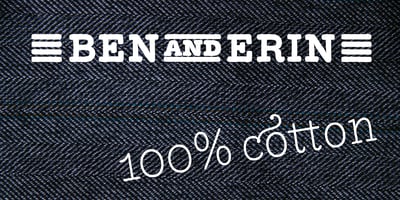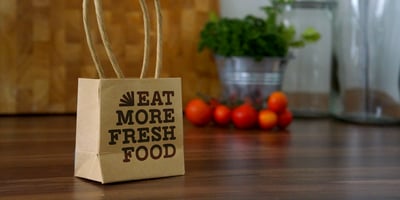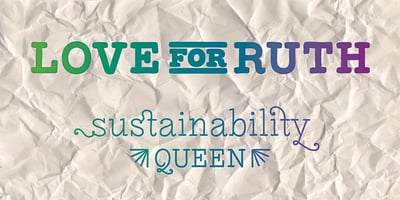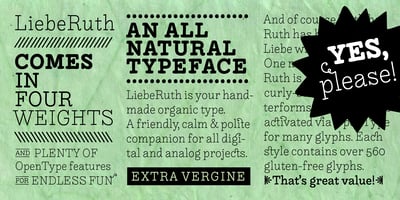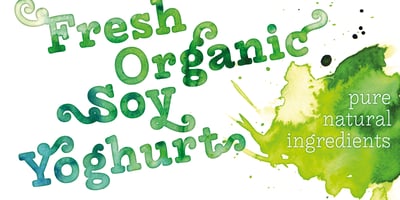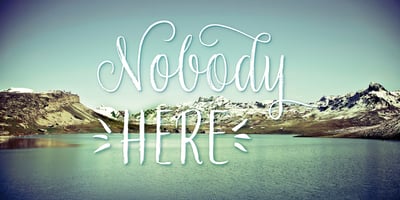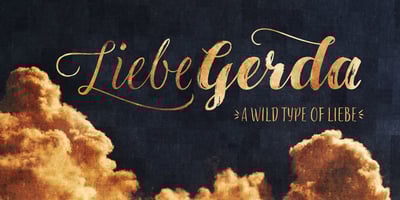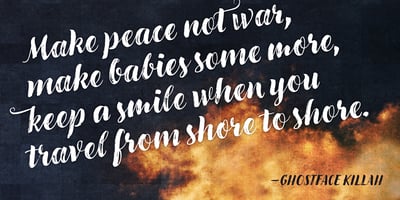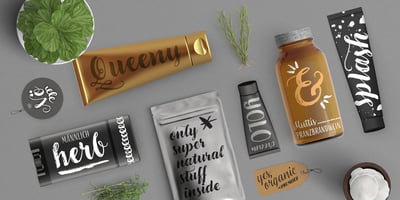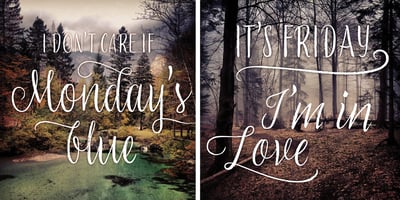
LiebeFonts
“Liebe” means “love” in German. “The name LiebeFonts is meaningful to me in more ways than one”, Ulrike Wilhelm said in her 2013 Creative Characters interview. “On one hand, my fonts obviously look ‘sweet’ — in other words, friendly and lovable. And of course the name also refers to my own love of fonts.”
Berlin-native Ulrike started her foundry with a collection of witty picture fonts; but it was her alphabetic typefaces that gave her company its first hit. LiebeErika was one of our Top Fonts of 2010.
All of Ulrike’s fonts have a hand-made touch to them. “I feel magically attracted to hand-made products and designs. I love it that people have to inspect the letters really closely to verify that they were not laboriously written down by someone but instead have been reproduced digitally.”
Her skills are equal parts handicraft and digital savvy, and her fonts are as technically sophisticated as they are charming. “It is very important to me that my fonts serve a wide variety of languages so that they are suitable for professional typesetting,” she says. “I also invest a lot of time into sensibly grouped OpenType features like contextual and stylistic alternates as well as a wide range of ligatures and swashed letters.”